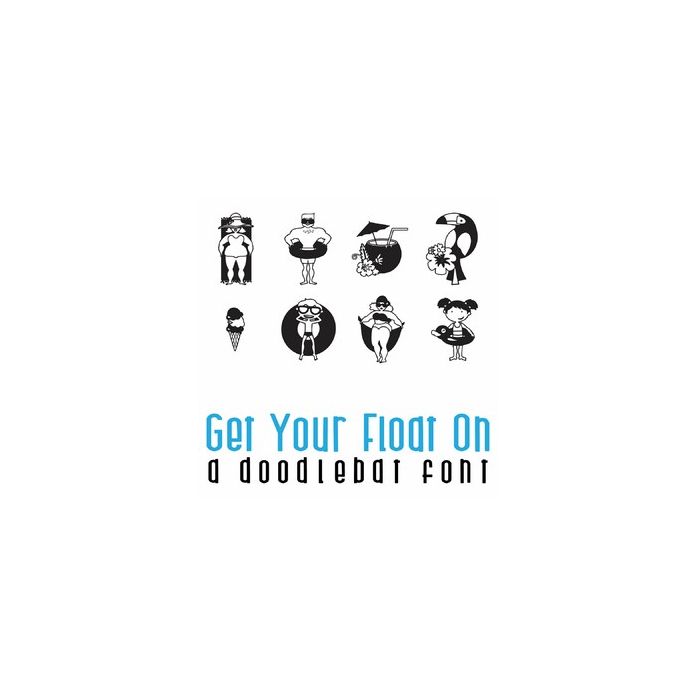
This fun doodlebat font features 36 fun summer images. Perfect for cards, crafts, gifts, decor, scrap book pages, planner stickers and more! Glyphys are A-Z and 0-10.